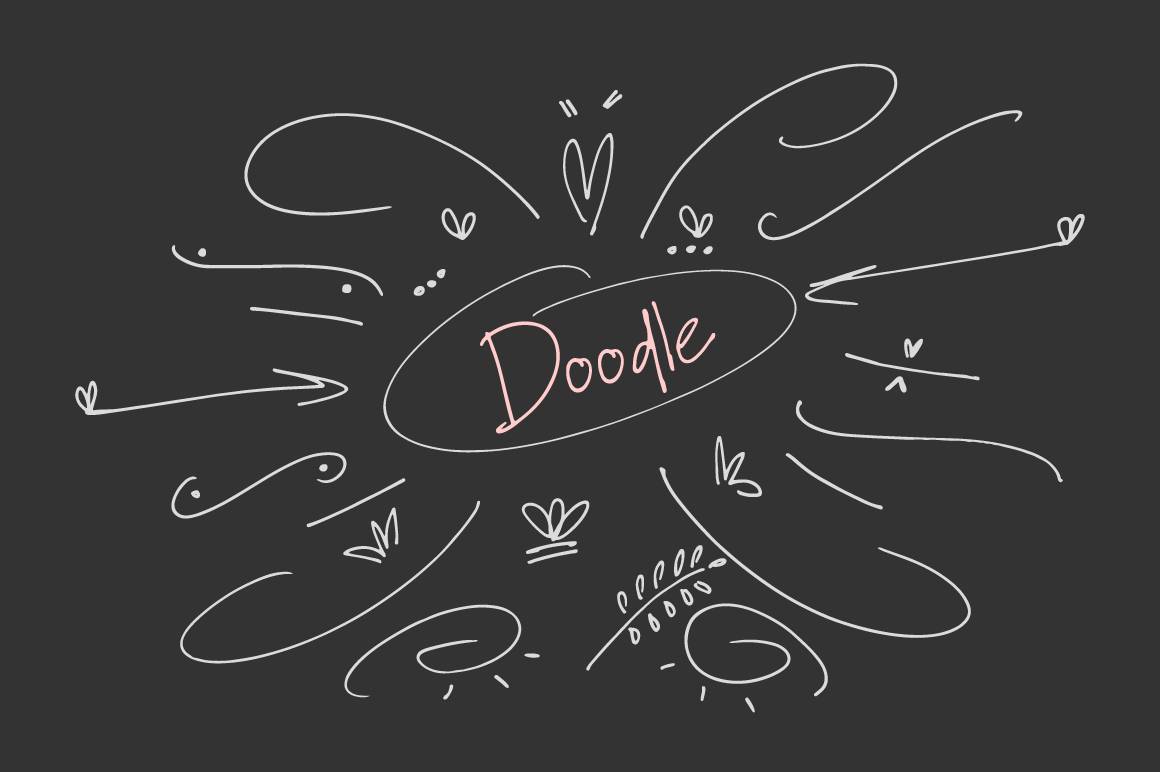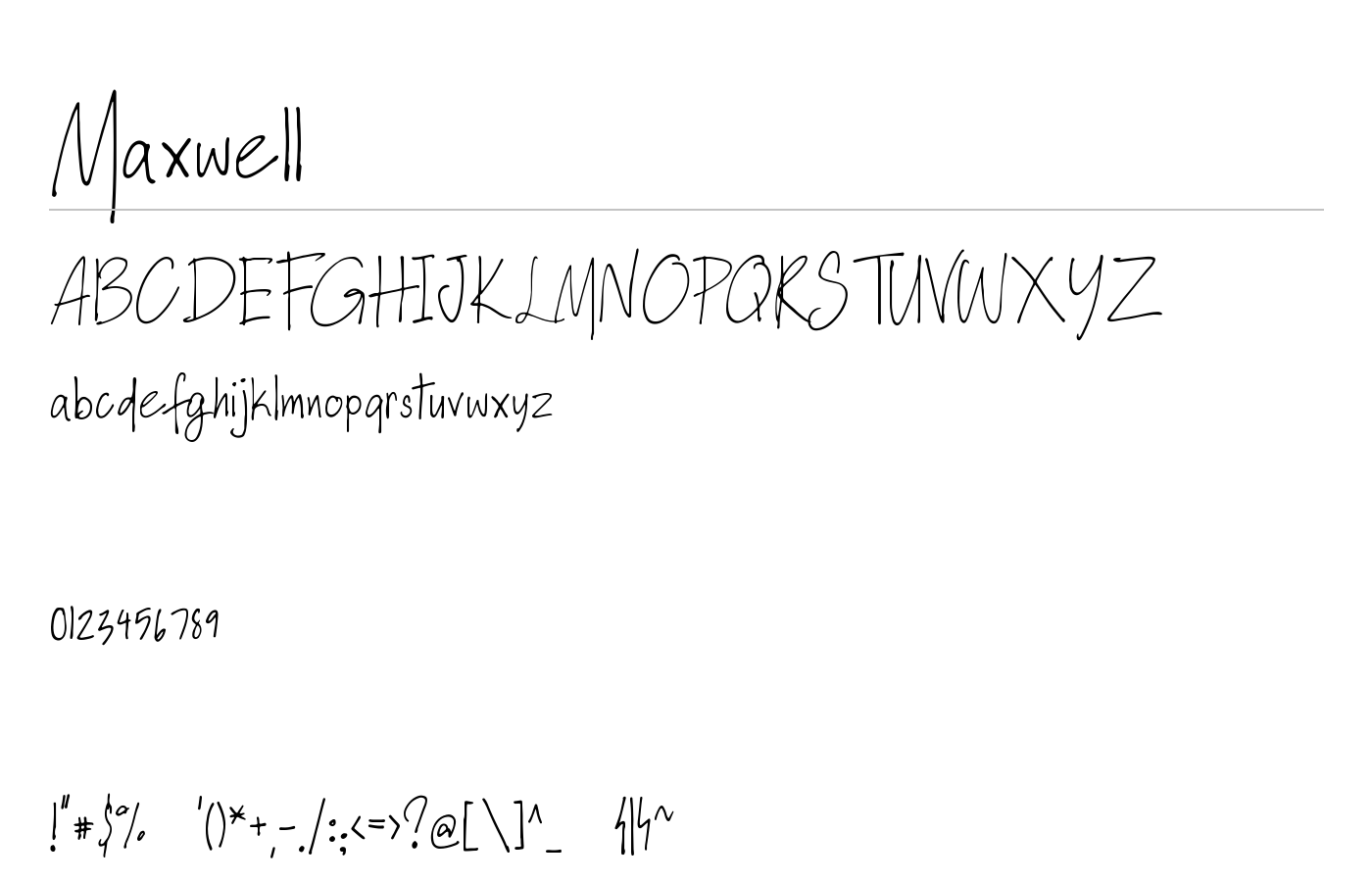
Max Well is a thin, handwritten-style sans serif font that features tall, narrow letterforms with a casual, slightly uneven stroke style. Its delicate, airy appearance with simple lines and minimal contrast offers a friendly, approachable feel, perfect for personal projects, informal branding, and creative headlines where a human touch is desired. This font works well in designs needing a playful yet clean look that feels authentic and expressive.
Max Well Font
About Max Well Font